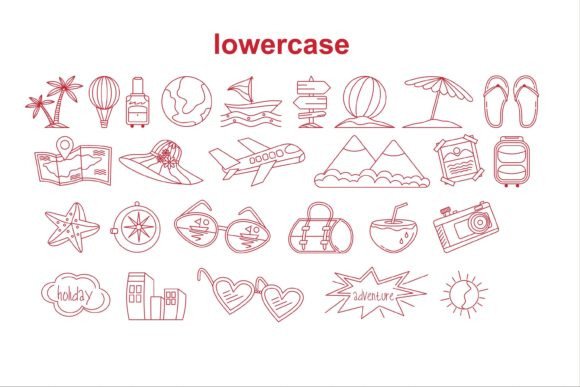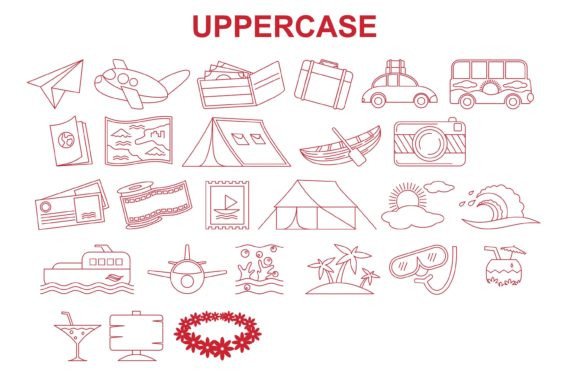
Introducing Haliday Font: The Ultimate Holiday and Travel-Themed Font
Are you a designer or crafter looking for a unique and eye-catching font to elevate your travel-themed designs? Look no further than Haliday Font! This hand-drawn font is specifically designed with holiday and travel themes in mind, making it the perfect addition to your design toolkit.
What Makes Haliday Font So Special?
Haliday Font is a one-of-a-kind, hand-drawn font that exudes a sense of fun and playfulness. Its cute and quirky design makes it perfect for a wide range of applications, from business card designs to invitations, social media graphics, and promotional materials. Whether you’re creating a travel brochure, a holiday greeting card, or a fun Instagram post, Haliday Font is sure to add a touch of personality and whimsy to your design.
Key Features of Haliday Font
- Hand-drawn design: Each letter and character in Haliday Font has been carefully hand-drawn to give it a unique, organic feel.
- Holiday and travel themes: The font features a range of holiday and travel-themed characters, including airplanes, suitcases, and palm trees.
- Cute and quirky: Haliday Font is designed to be fun and playful, making it perfect for designs that need a bit of personality.
- Versatile: The font can be used for a wide range of applications, from print materials to digital graphics.
Perfect for Travel-Themed Designs
Haliday Font is specifically designed with travel-themed designs in mind. Whether you’re creating a brochure for a travel company, a website for a hotel, or a social media post for a travel blogger, this font is sure to add a touch of personality and whimsy to your design. The font’s holiday and travel themes make it perfect for:
- Travel brochures and guides
- Hotel and resort branding
- Travel blog and social media graphics
- Holiday greeting cards and invitations
- Travel-themed merchandise, such as t-shirts and mugs
Tips for Using Haliday Font
Here are a few tips for getting the most out of Haliday Font:
- Use it sparingly: While Haliday Font is cute and quirky, it can be overwhelming if used too much. Use it sparingly to add a touch of personality to your design.
- Pair it with a simple font: Pair Haliday Font with a simple font, such as Arial or Helvetica, to create visual interest and hierarchy in your design.
- Experiment with colors: Haliday Font looks great in a range of colors, from bright and bold to pastel and soft. Experiment with different colors to find the perfect look for your design.
Haliday Font is a unique and eye-catching font that’s perfect for travel-themed designs. Its hand-drawn design, holiday and travel themes, and cute and quirky personality make it a must-have for designers and crafters. Whether you’re creating a business card, invitation, social media graphic, or promotional material, Haliday Font is sure to add a touch of personality and whimsy to your design.